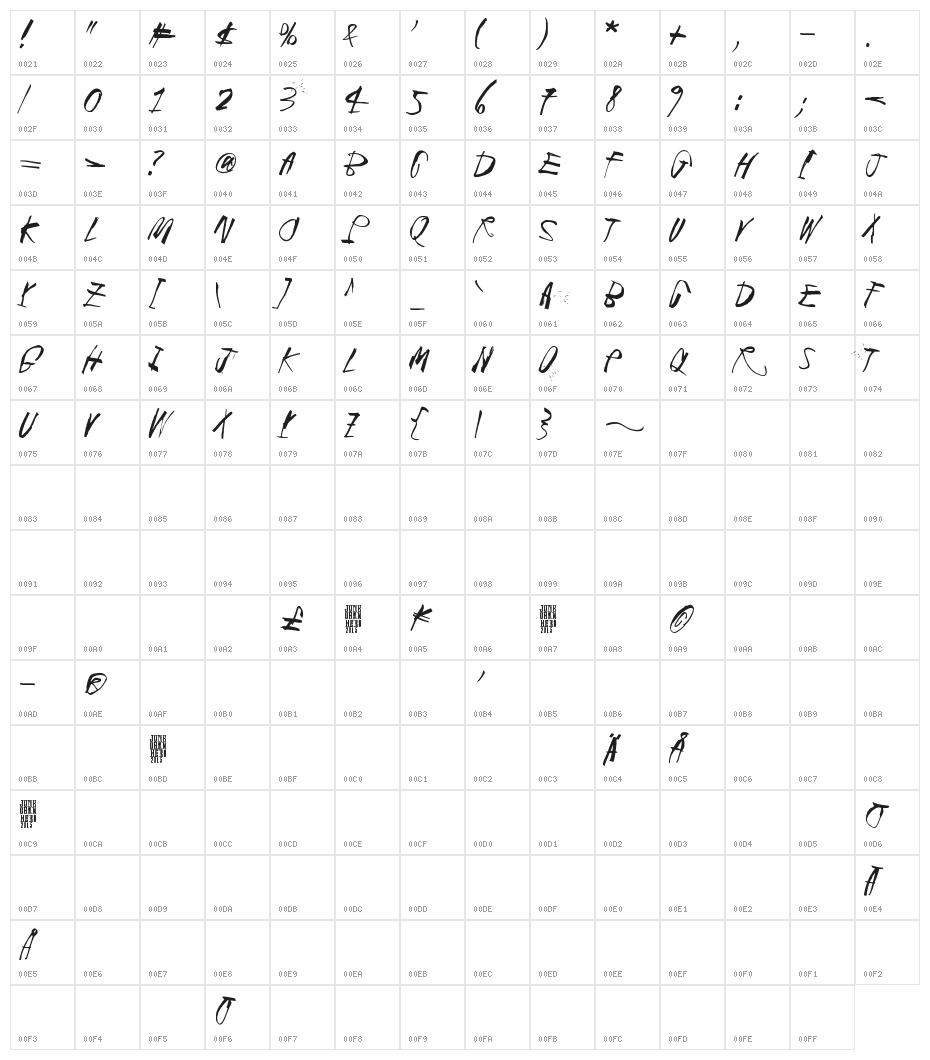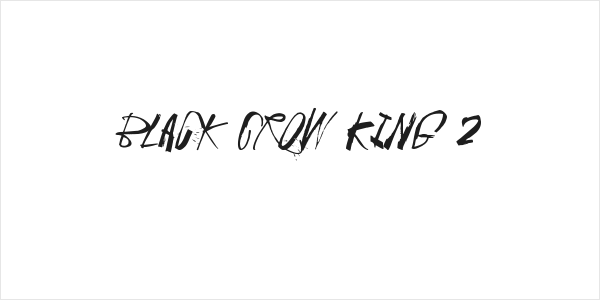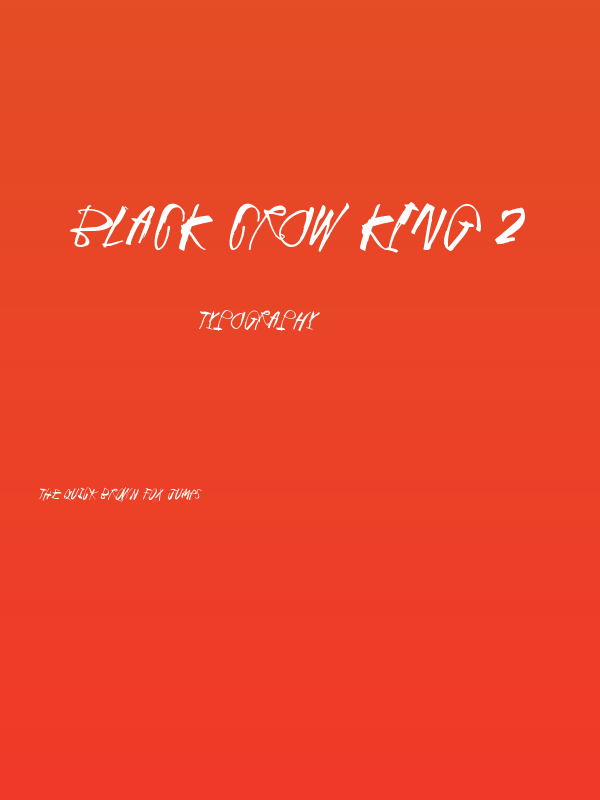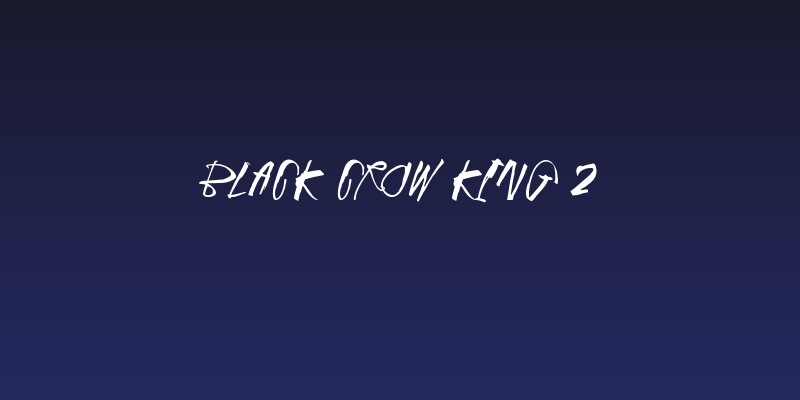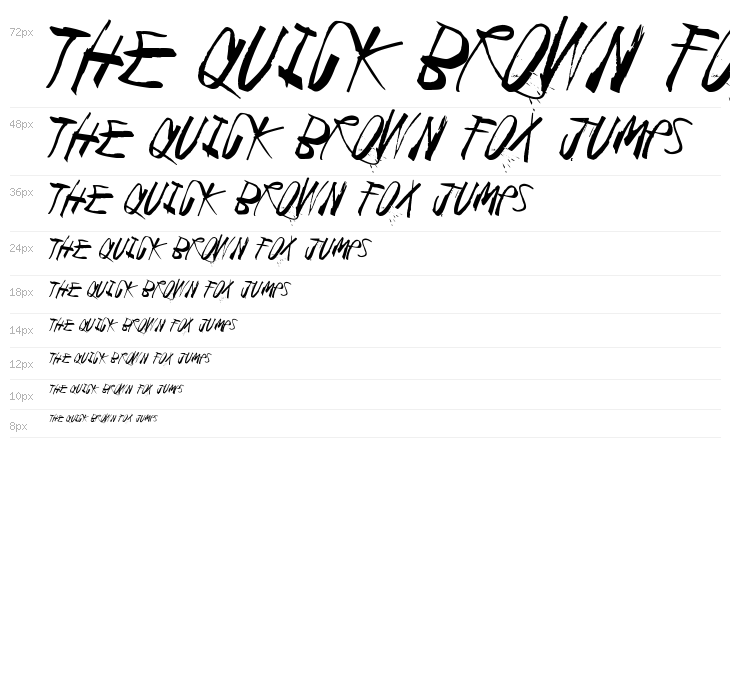
Black Crow King 2 Font
Black Crow King 2 Description
This font features a bold, expressive style with a hand-drawn appearance. The characters are dynamic and energetic, with a brush-like texture that gives them a raw and edgy feel. The strokes vary in thickness, adding a sense of movement and spontaneity. The uppercase and lowercase letters maintain a consistent style, while the numbers and special characters complement the overall aesthetic. This font is ideal for projects that require a strong, artistic touch, such as album covers, posters, or branding for creative industries.
| Use Case | Logos, Headlines |
| Proposed Projects | Album covers, posters, creative branding, artistic projects. |